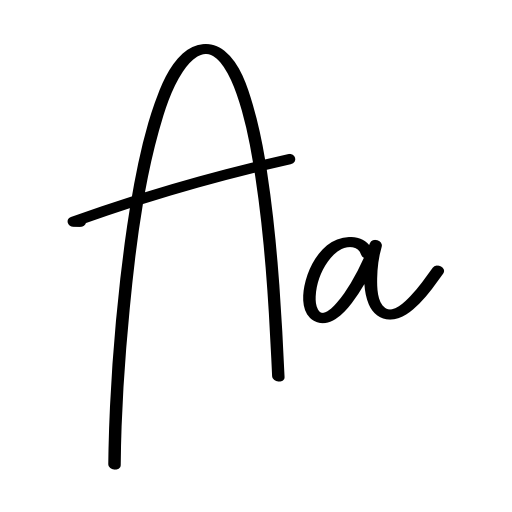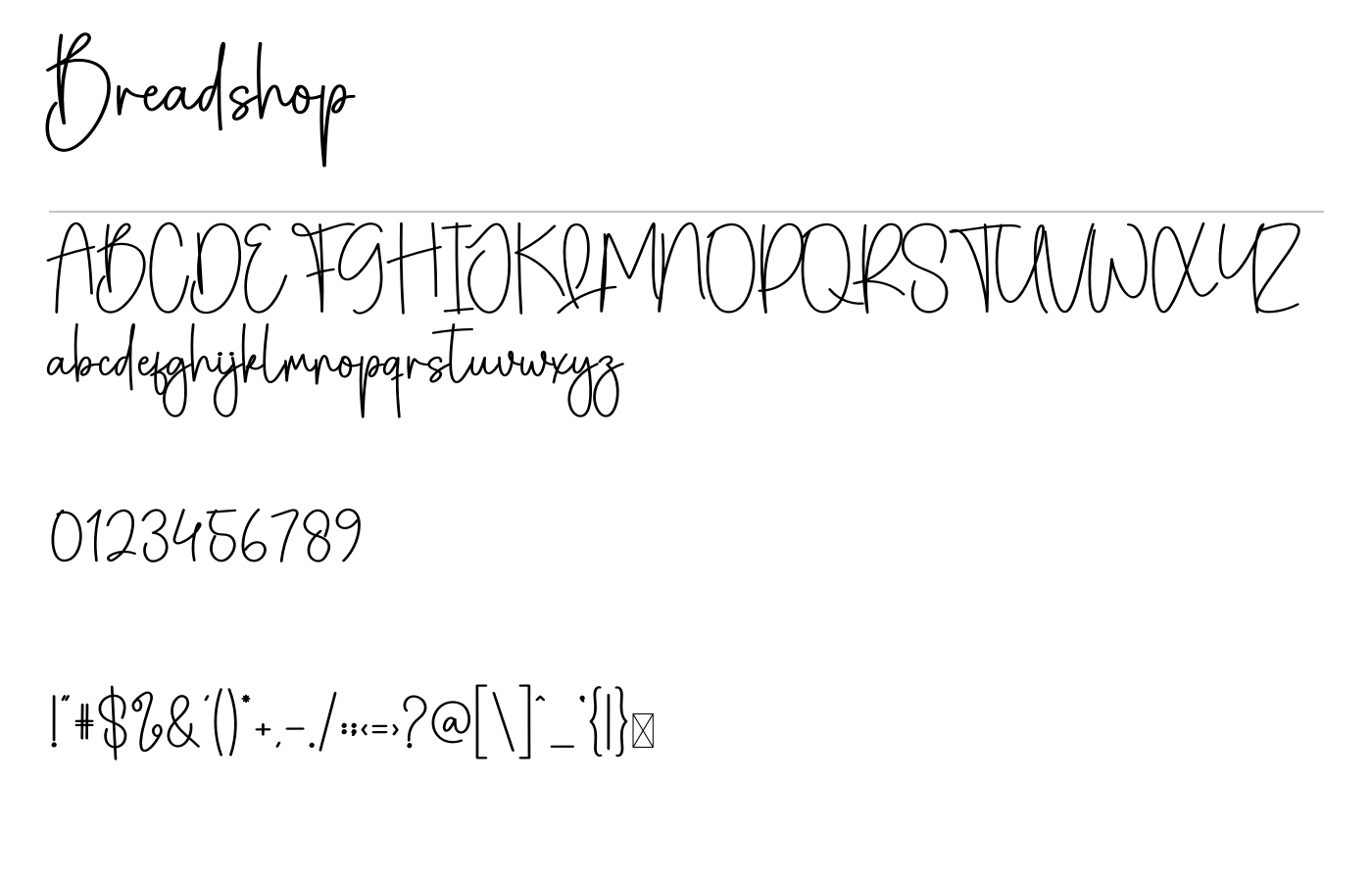
Breadshop Font is a playful, handwritten script with tall, narrow letterforms that convey a casual and friendly vibe. Its thin strokes and irregular shapes give it a charming, personal touch, making it ideal for creative branding, invitations, and informal designs where a warm, approachable feel is desired. This font works great in headlines and logos that seek to express individuality and creativity.
Breadshop Font